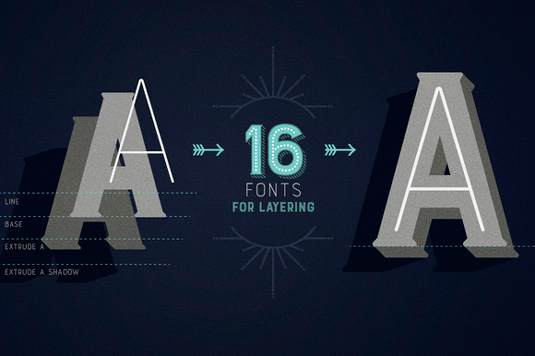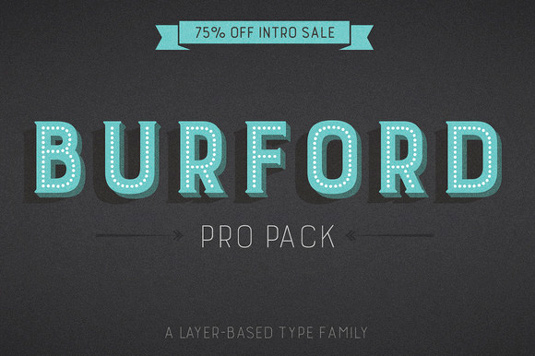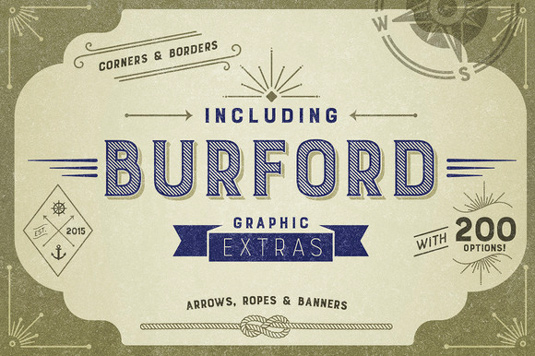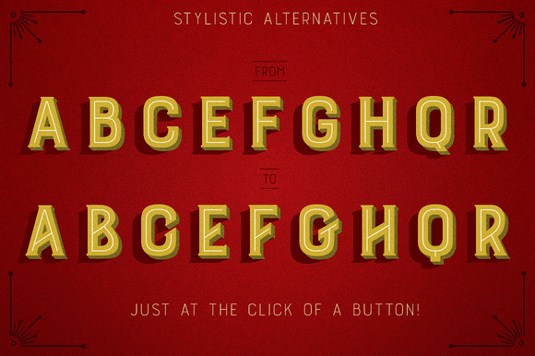
Font of the day: Burford
Burford by Kimmy Kirkwood
Burford is a font family that designer Kimmy Kirkwood sketched while traveling through Europe. "During my time in Amsterdam, I found myself spending two or three hours per day sketching characters inspired by all the incredible typography I had seen," she comments. "Back in the states I digitalized Burford and decided it would make a beautiful layer-based font."